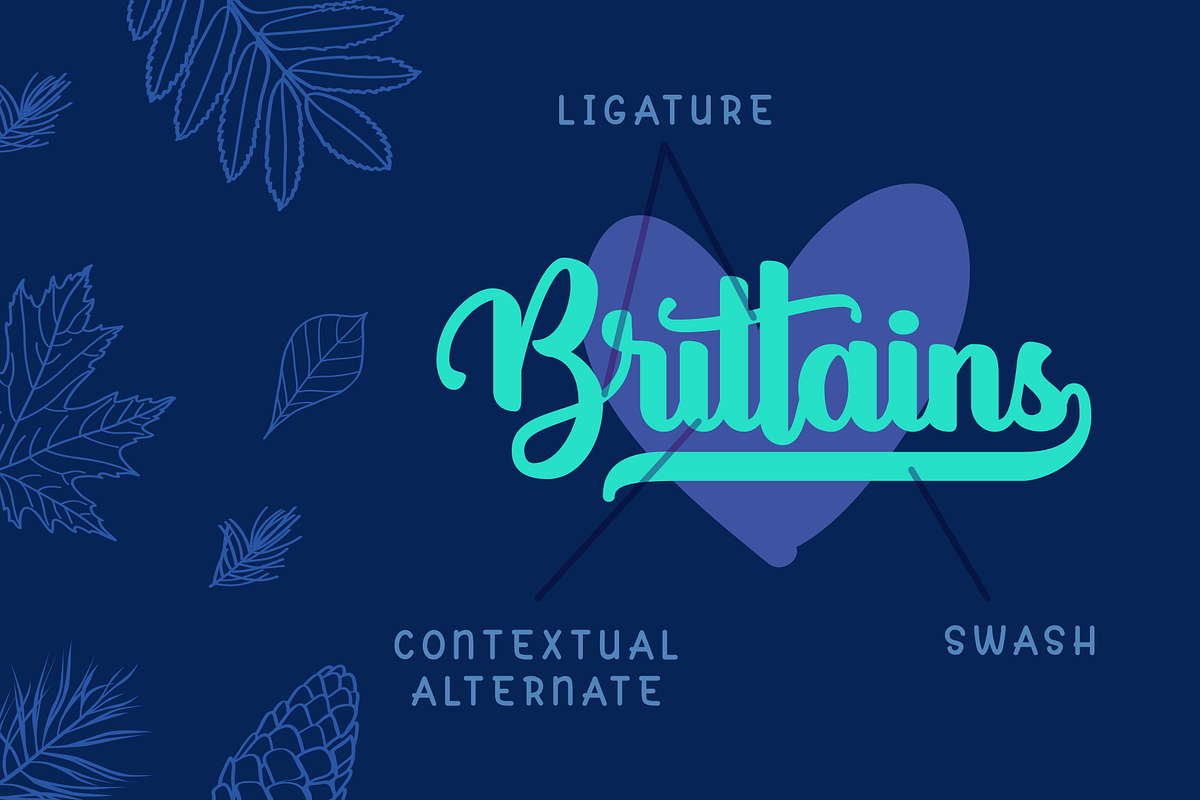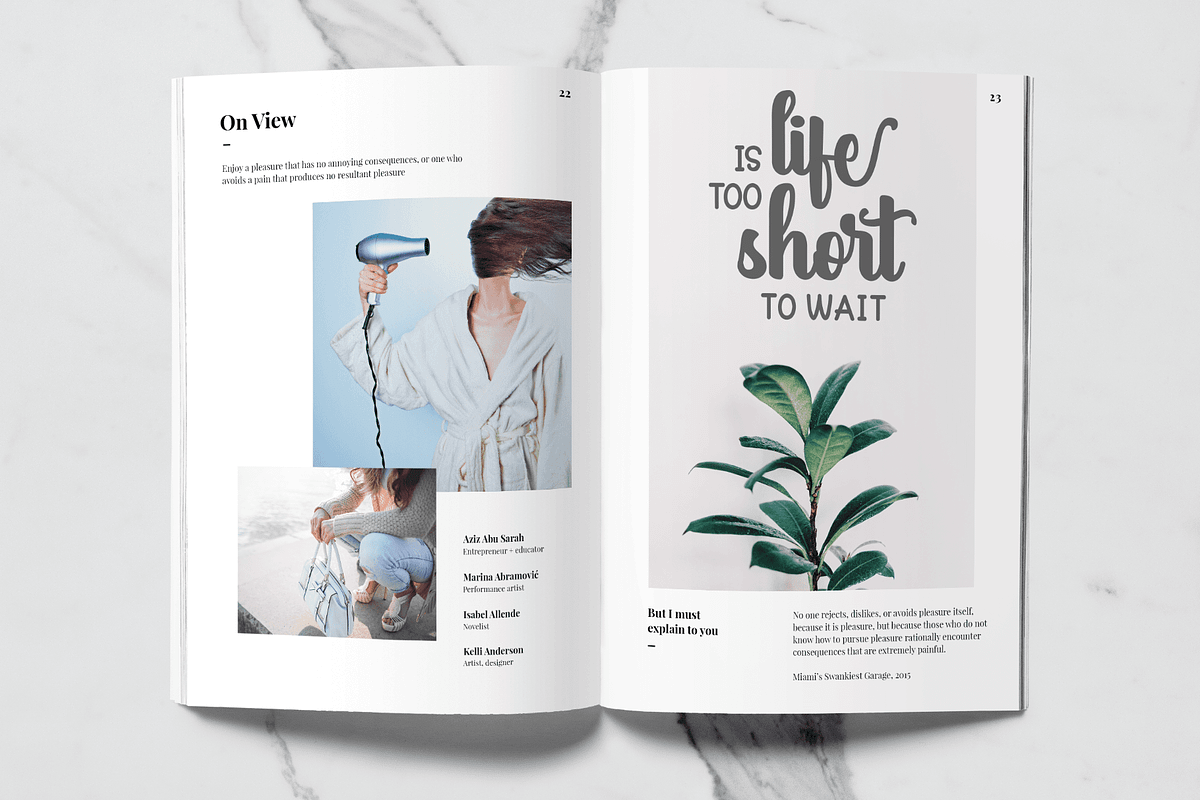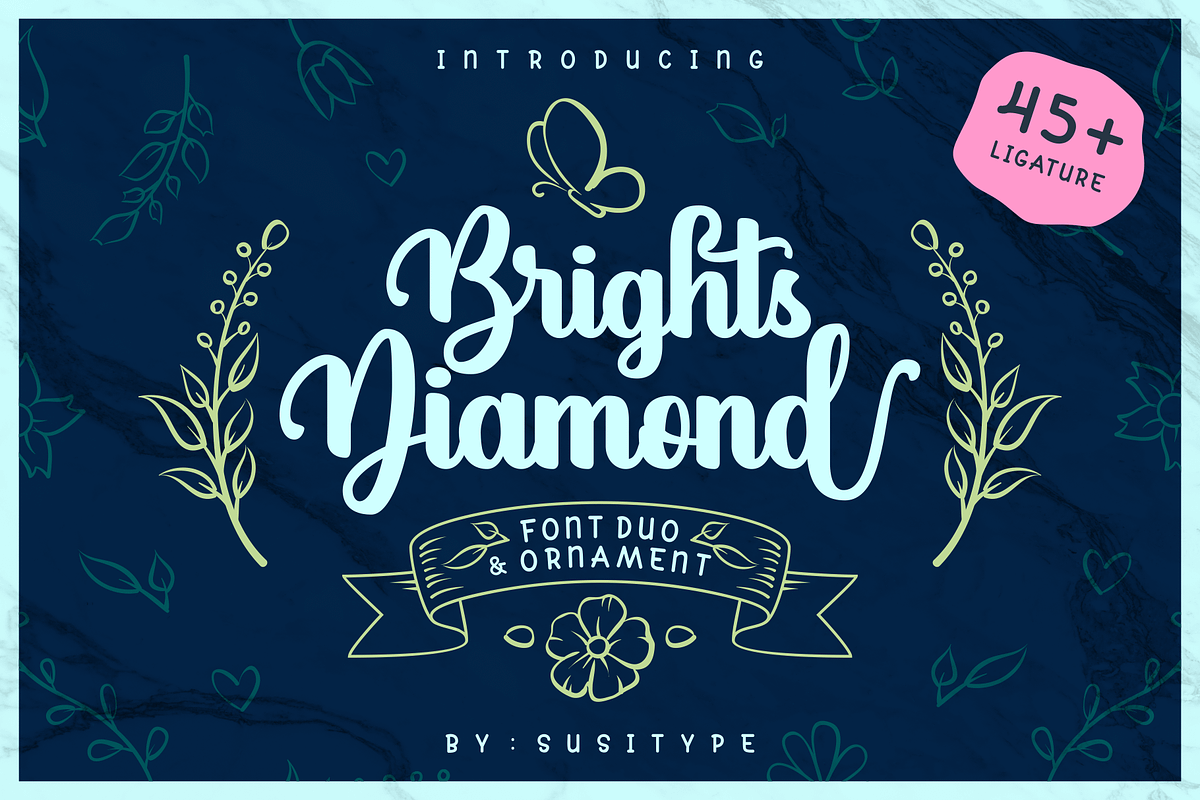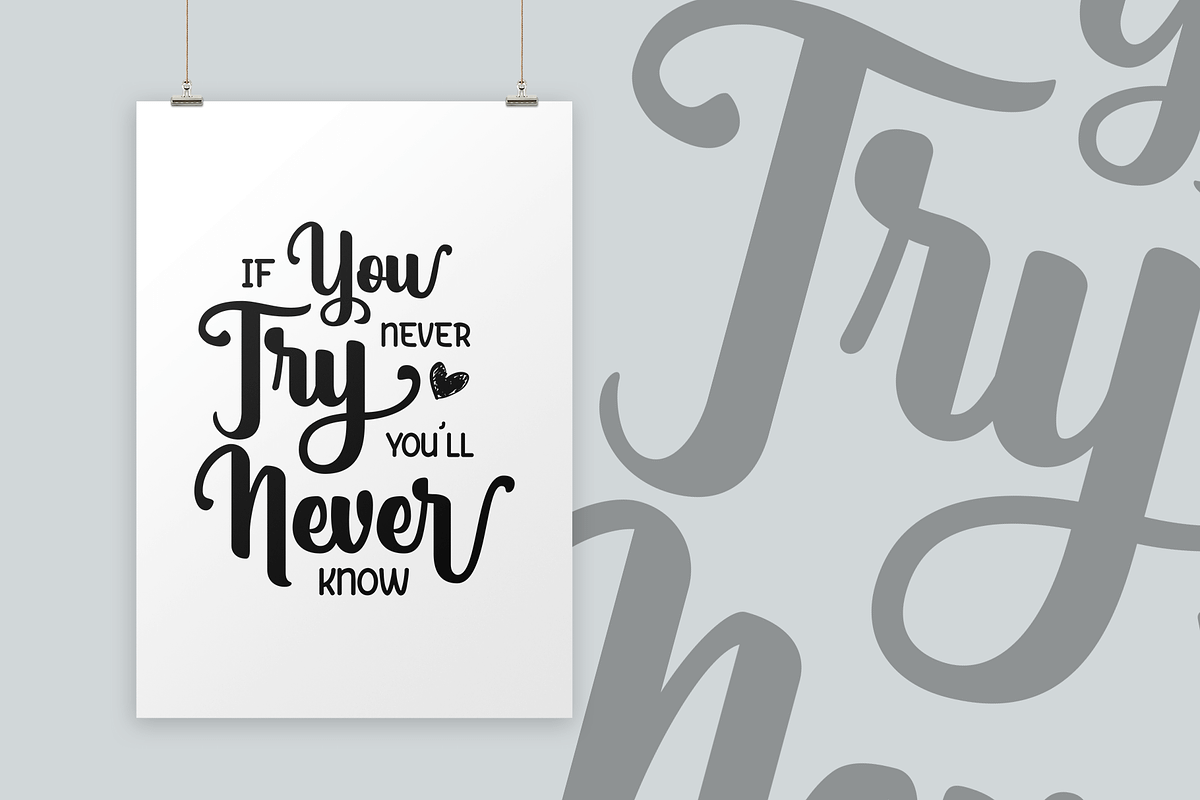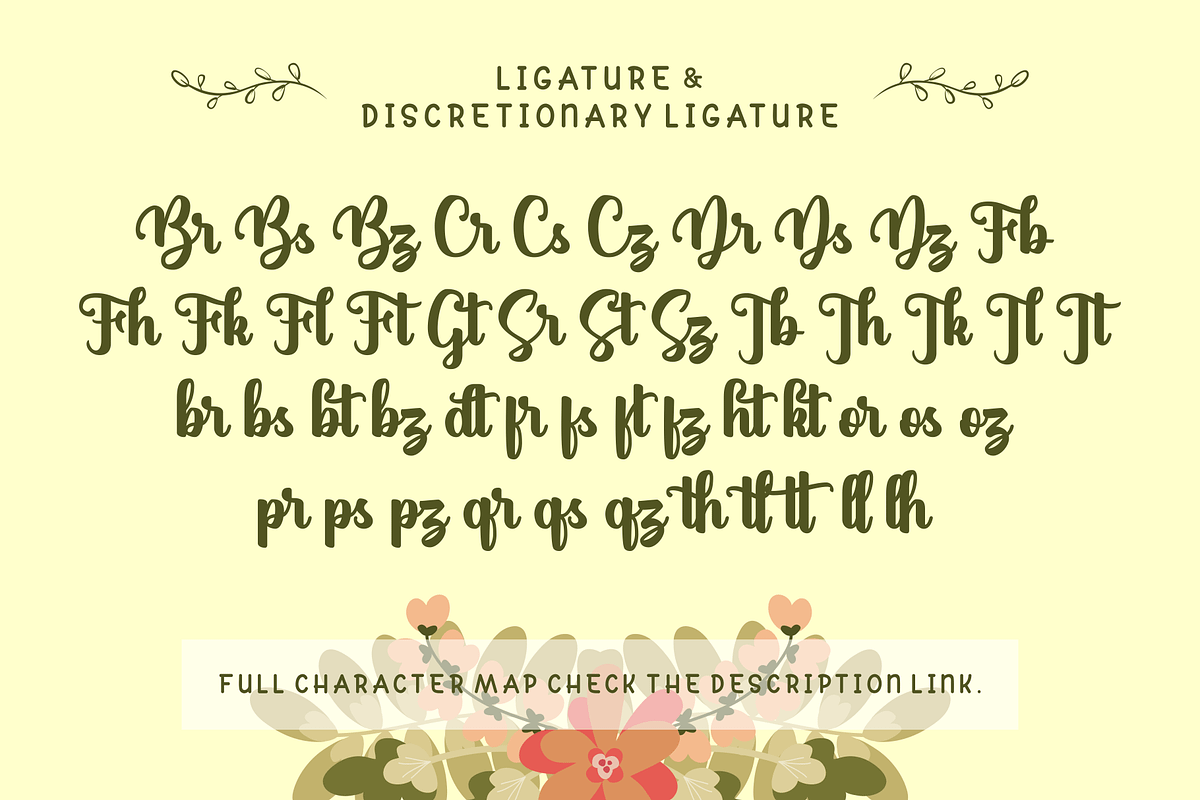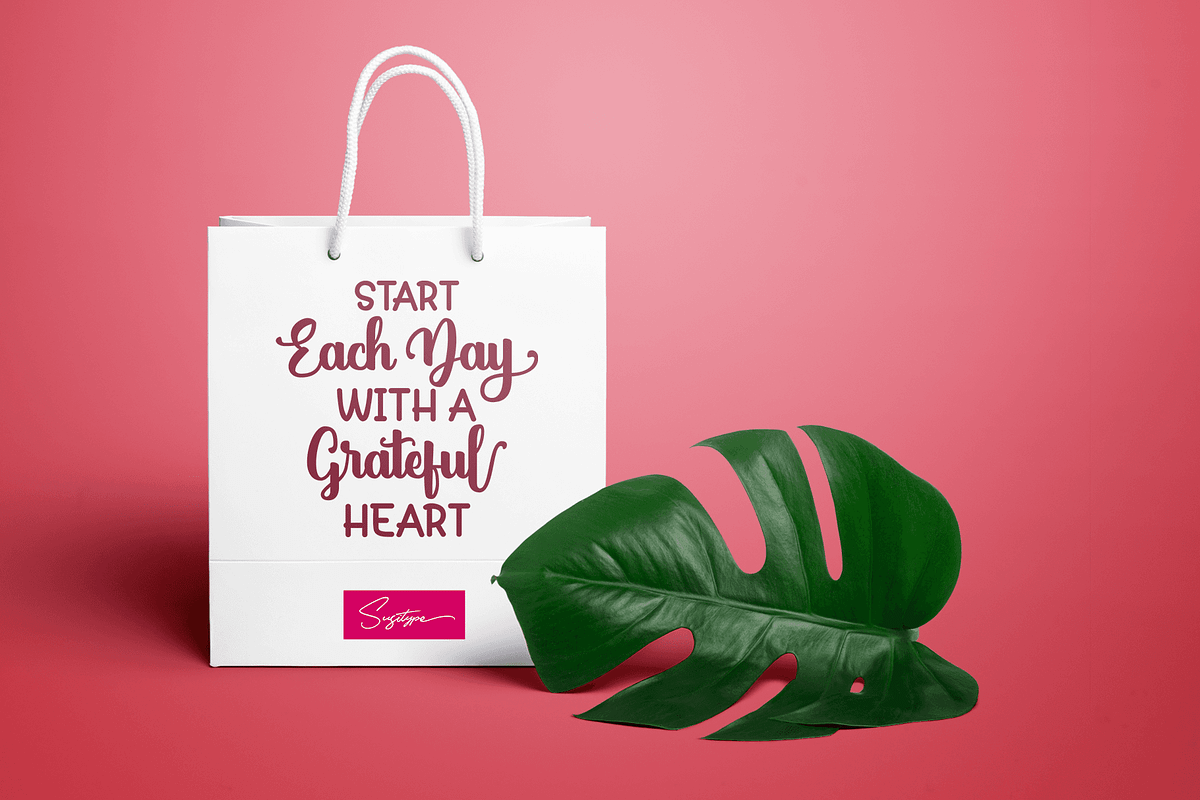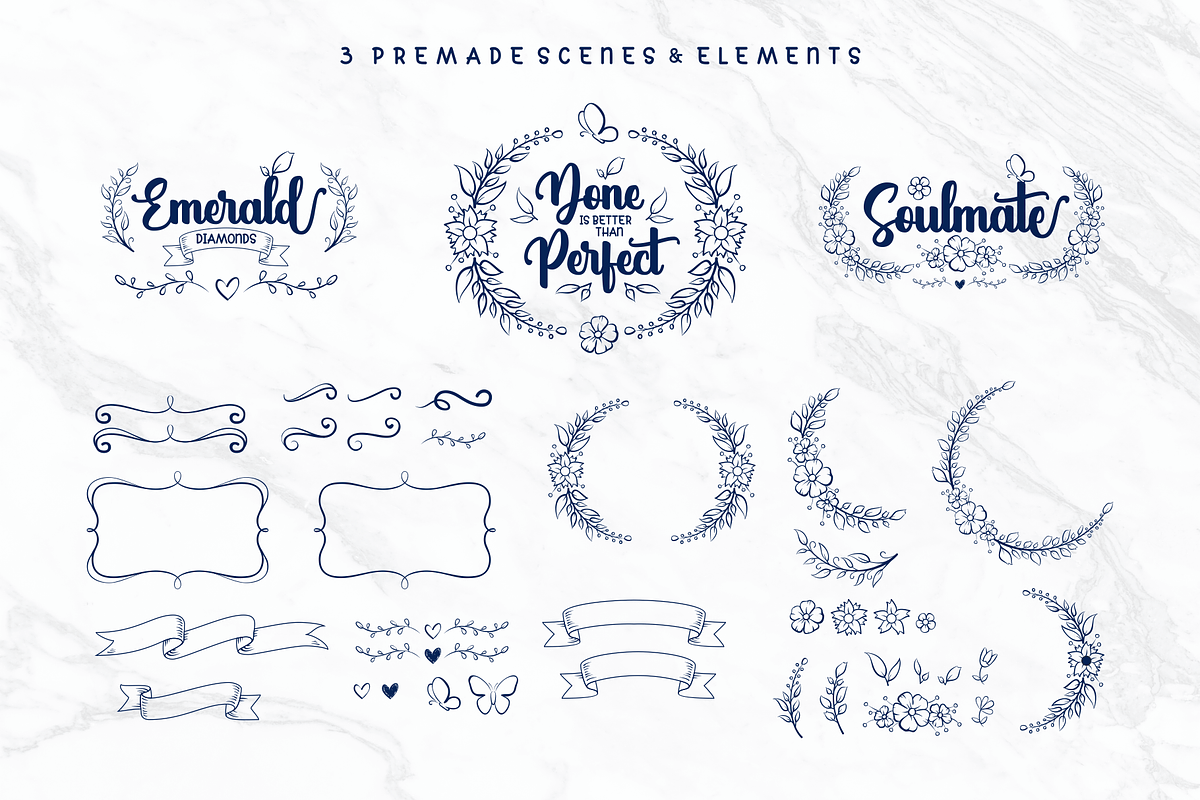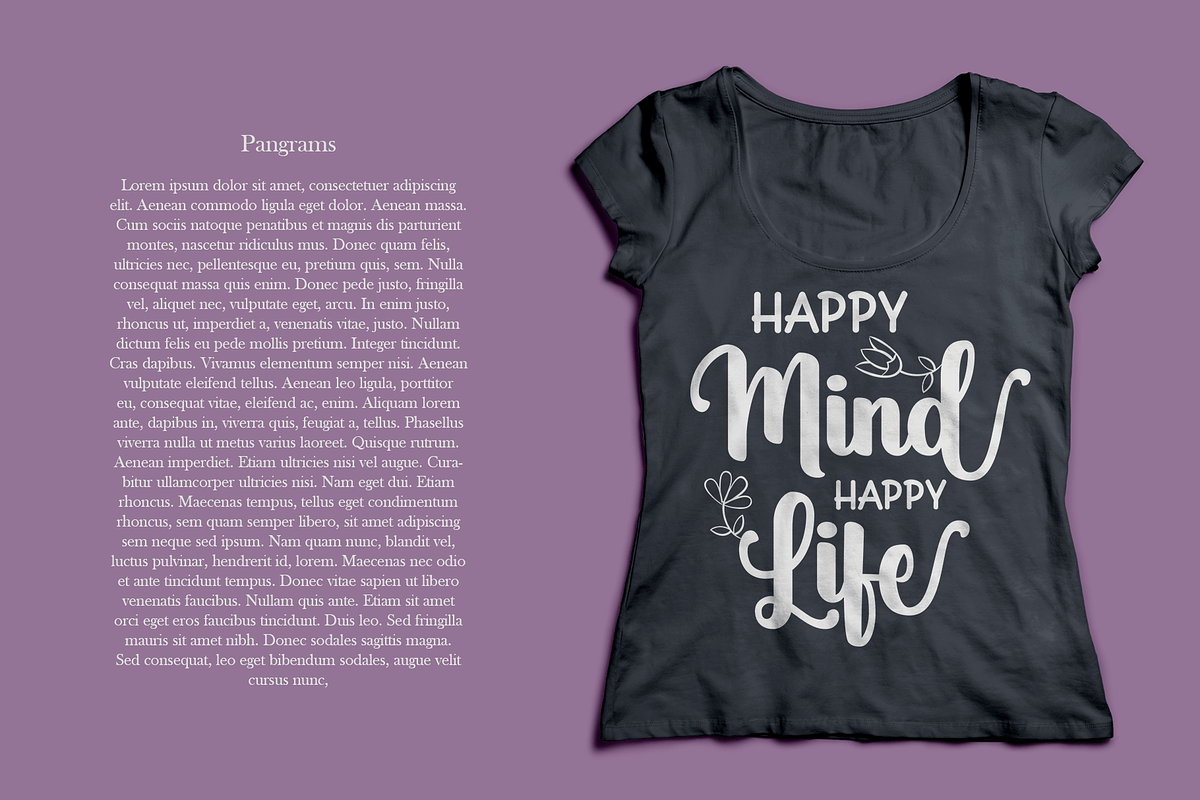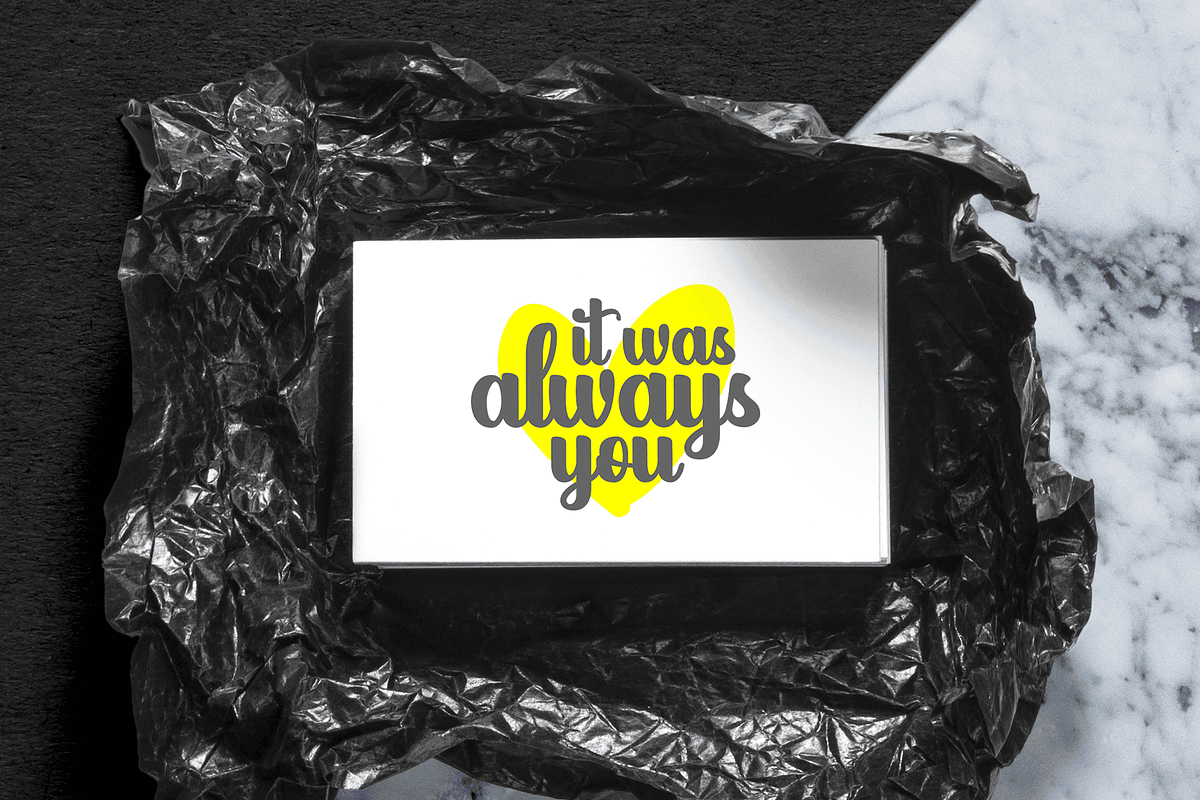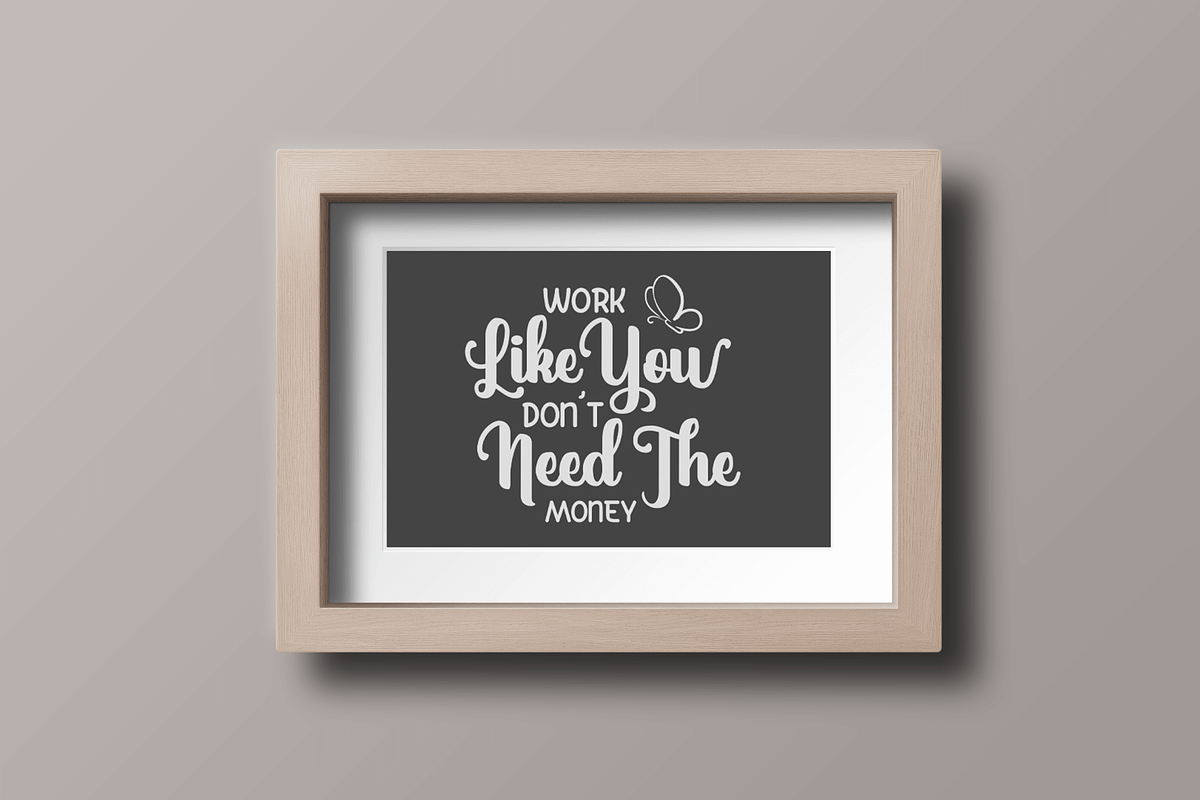
Brights Diamond + EXTRAS
Introducing Brights Diamond , font duo that including feminine bold script calligraphy and monoline sans. PLUS WITH EXTRAS FLORAL ORNAMENT. Still not enough? This package also includes 45+ LIGATURE . Of course we all love ligature aren't we?. We also give you some alternate character to increase the fun. So, what are you waiting for?
- Ligatures ✔
- Alternates ✔
- Discretionary Ligature ✔
- Contextual Alternates ✔
- Swashes ✔
MULTILINGUAL ACCENT